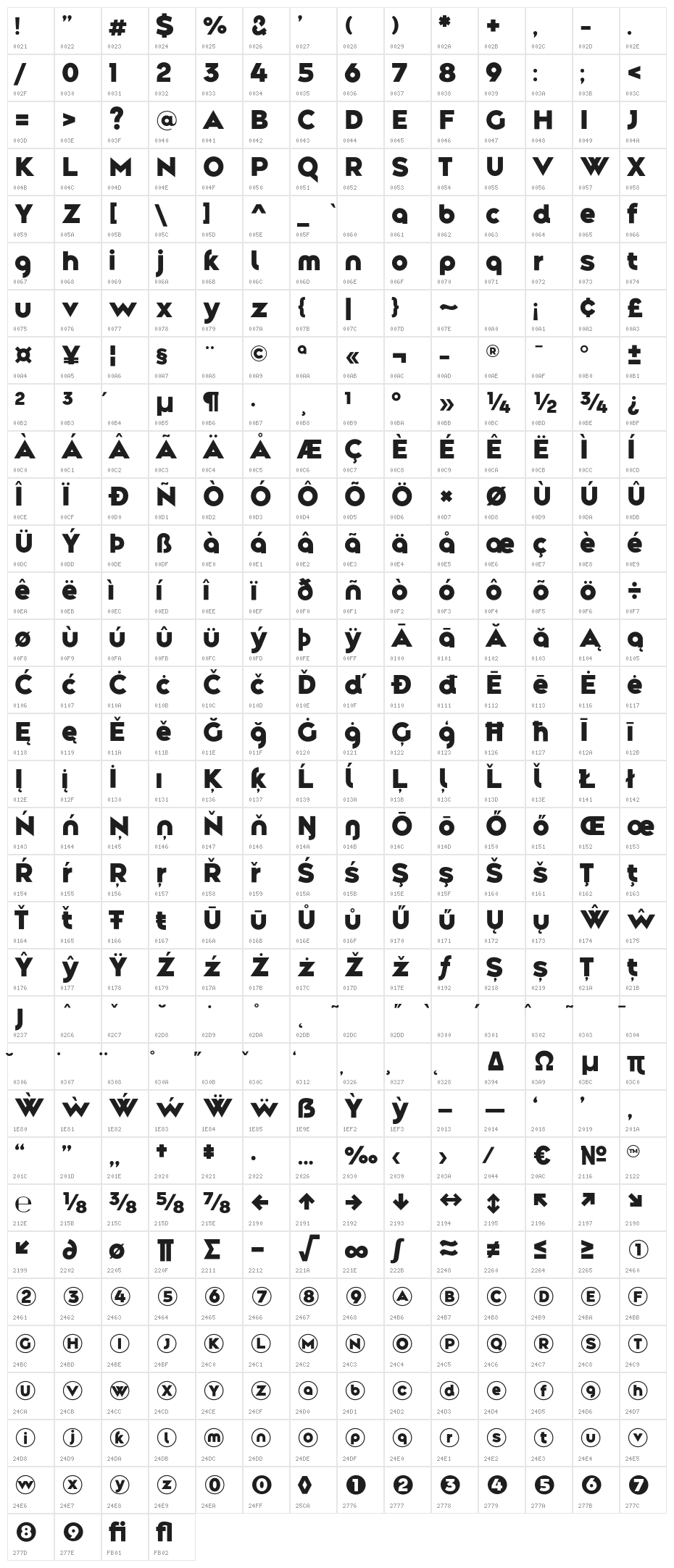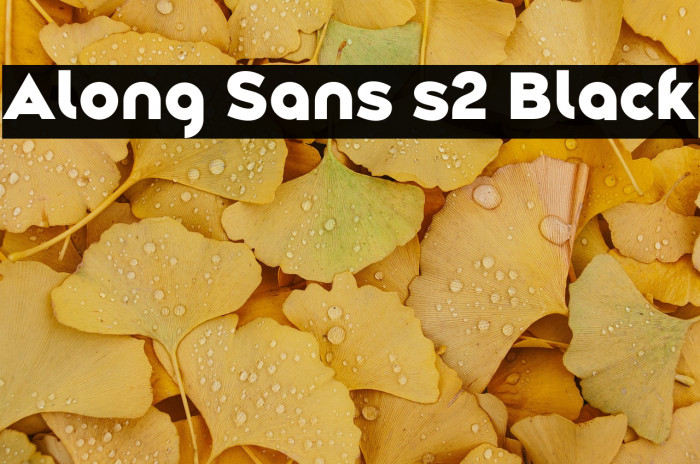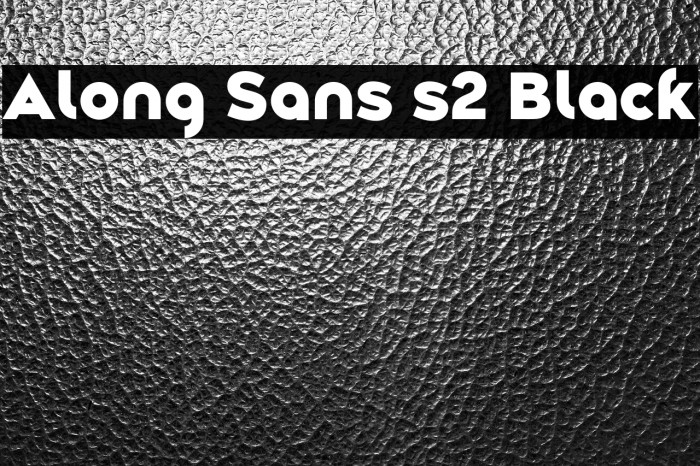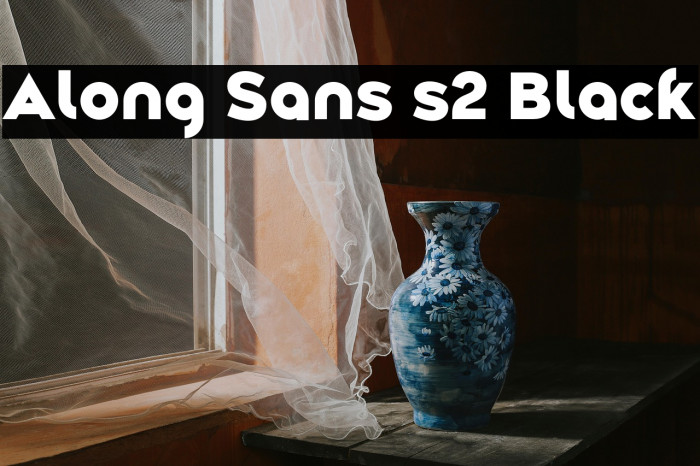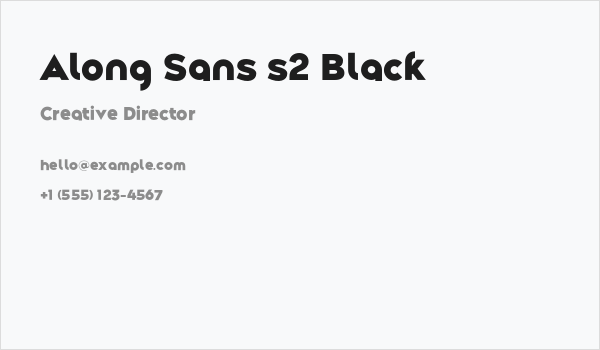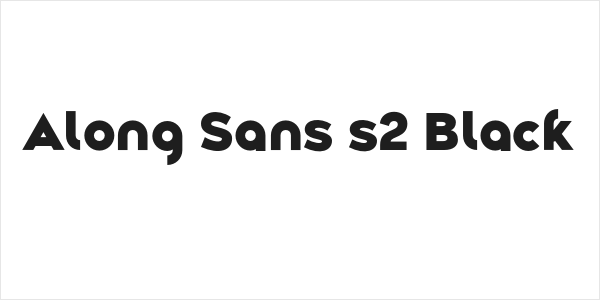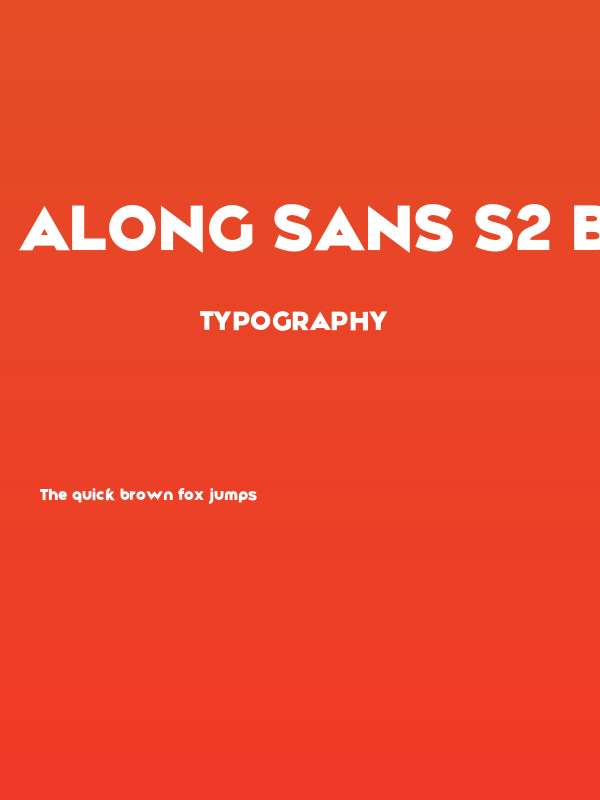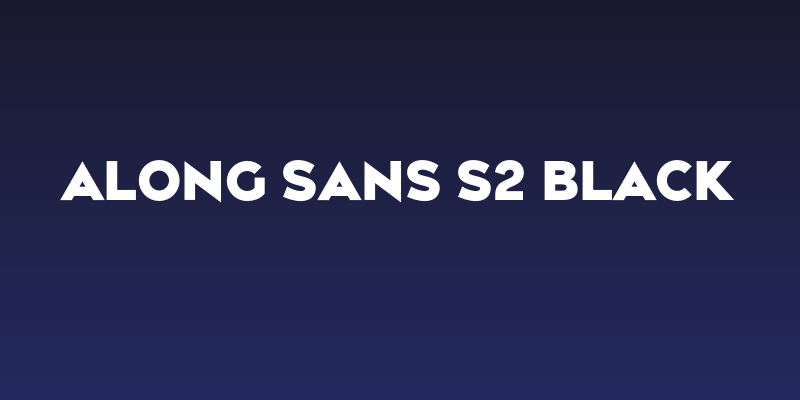
Along Sans s2 Black Font
Along Sans s2 Black Description
This font exhibits a bold and modern sans-serif style with a strong geometric influence. The uppercase letters are characterized by sharp angles and clean lines, giving them a striking and impactful appearance. The lowercase letters maintain a consistent thickness, contributing to a cohesive look across the font. The numerals are robust and easily legible, while the special characters are designed to match the boldness of the alphabet. Overall, this font is well-suited for projects that require a contemporary and assertive typeface.
| Proposed Projects | Ideal for branding, advertising, headlines, and digital media where a strong visual impact is desired. |